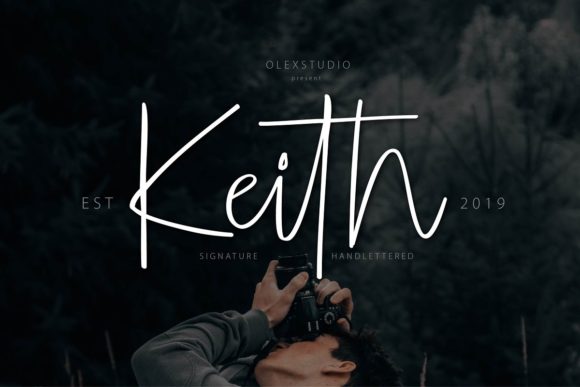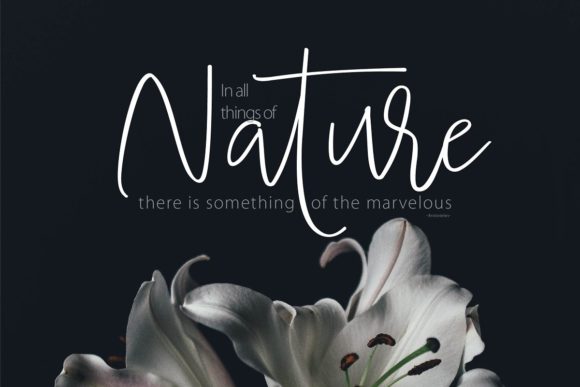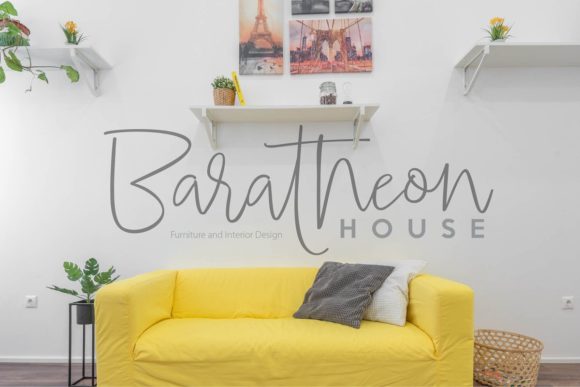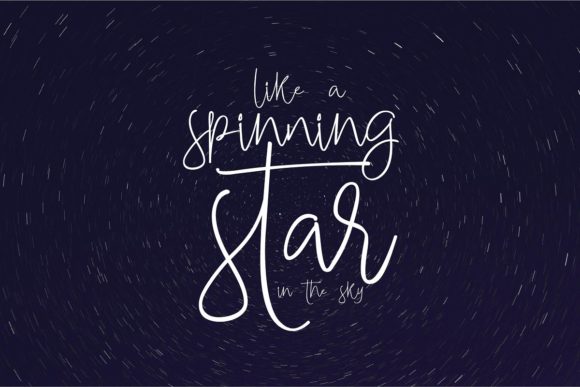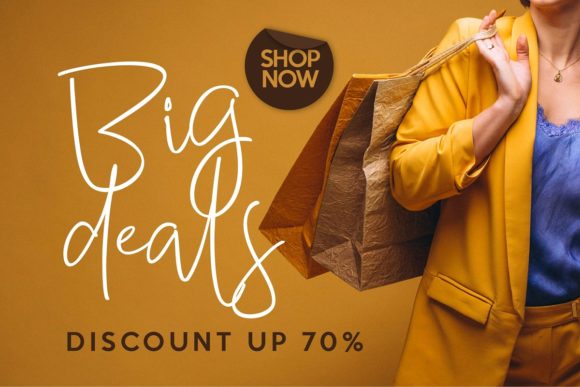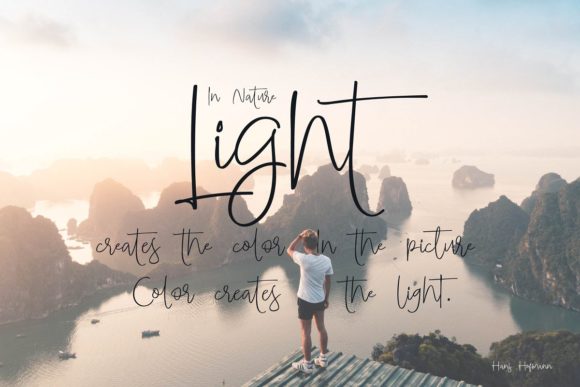
Keith Font
About Keith Font
Keith feels equally charming and elegant. This stunning script font is a stylish homage to classic calligraphy. It features a varying baseline, smooth lines, gorgeous glyphs and stunning alternate. This font is PUA encoded which means you can access all of the amazing glyphs and swashes with ease! It also features a wealth of special features including alternate glyphs and ligatures.